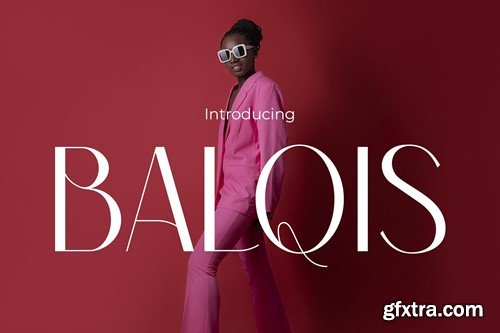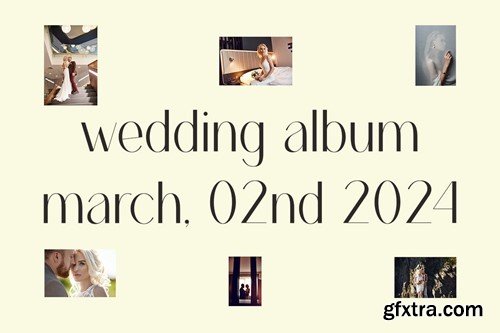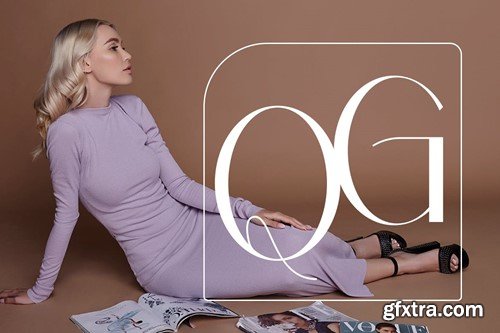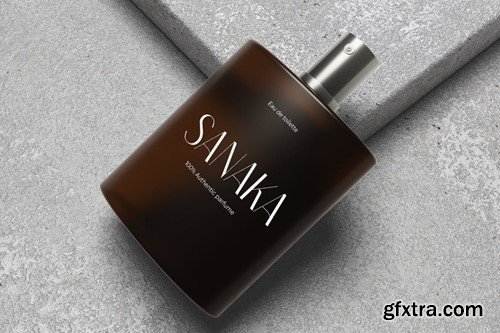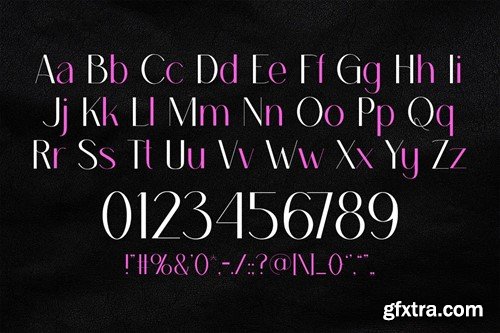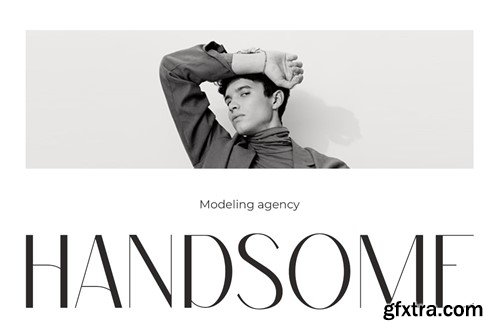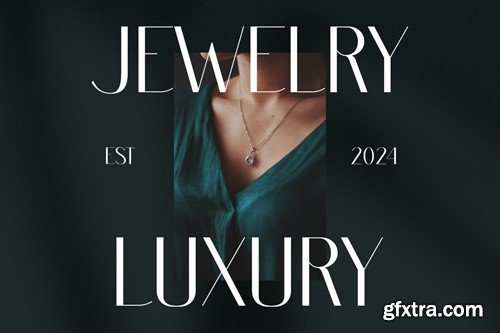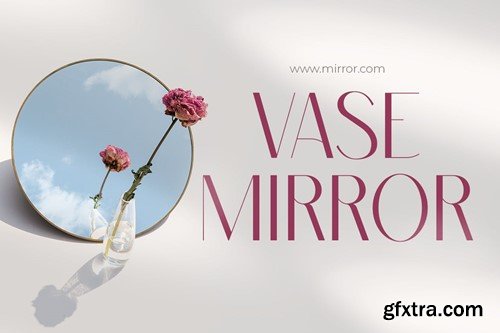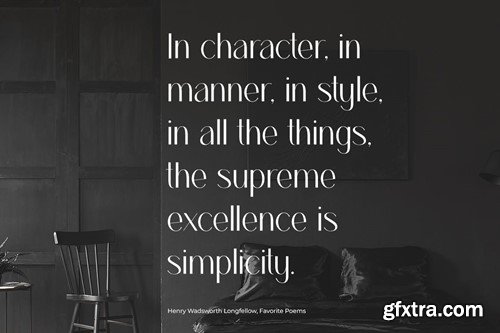
芭莉斯 - 一款优雅现代字体AY2KXMZ
Balqis is a modern serif font that embodies elegance and beauty, crafted for those who seek stylish sophistication in their design projects. With its clean lines and refined curves, Balqis adds a touch of class to any medium it graces. Perfect for logos, it provides a distinctive and upscale look, ensuring brands are perceived with an aura of elegance and professionalism. The font's beauty shines in quotes, where its elegant serifs enhance the depth of words, making each message memorable and impactful. For invitations, Balqis sets a tone of refined grace, inviting guests to events with a promise of exclusivity and high-end sophistication. In posters and greetings, Balqis communicates messages with an attractive and polished flair, effortlessly capturing the attention of viewers. Its application in packaging and branding offers a unique identity that speaks volumes of luxury and modern elegance, making products stand out on the shelves. For book covers, event promotions, headlines, and advertising, Balqis ensures your message is not only seen but felt, delivering a blend of modern serifs with timeless elegance that engages and inspires the audience.